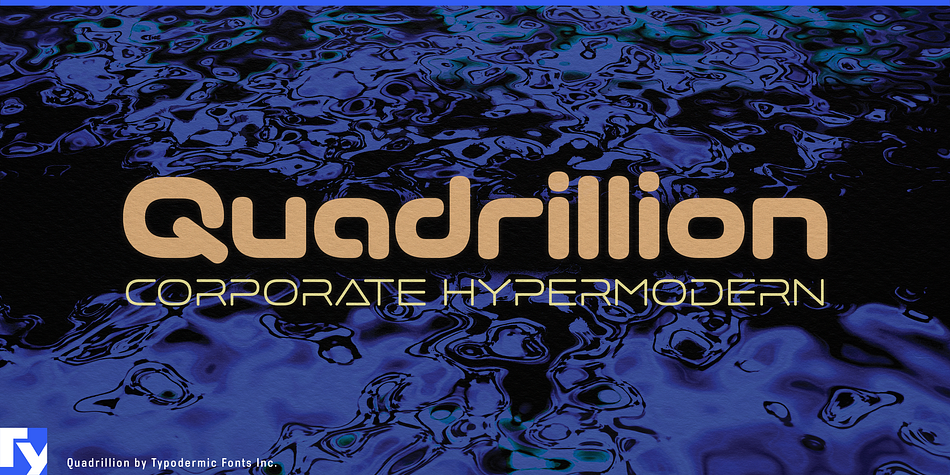
Quadrillion
Designed by Ray Larabie, Quadrillion is a display sans font family. This typeface has twelve styles and was published by Typodermic Fonts Inc.
Looking for a typeface that’s out of this world? Look no further than Quadrillion. With its wide, capsule-like design and futuristic aesthetic, Quadrillion is the perfect choice for designers who want to infuse their message with an otherworldly character.
Inspired by the capital letterforms of Ethnocentric, a popular headliner from 1999, Quadrillion is a techno typeface with a distinctly plastic presence. Its six weights and italics allow for a wide range of design options, making it the perfect choice for any project that requires a bold, modern look.